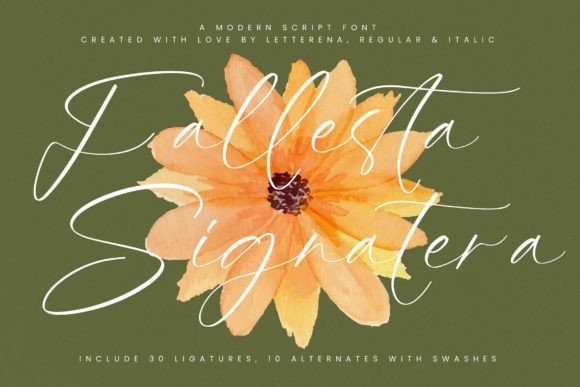
The Perfect Script: Elevating Your Designs with Fallesta Signatera Font
There’s something magical about the moment when a design comes together – the spark of creativity, the perfect balance of colors and typography. For designers, this moment is often the culmination of hours of brainstorming and experimentation. But what if we told you that the key to unlocking this magic lies in a single, stylish font? Enter Fallesta Signatera Font, a charming handwritten script that adds a touch of elegance and sophistication to any design.
Whether you’re crafting invitations, branding materials, or social media graphics, Fallesta Signatera Font is the perfect choice for designers seeking to infuse their work with a sense of warmth and creativity. With its fluid strokes and natural flow, this font is sure to captivate your audience and leave a lasting impression. As a valuable addition to any designer’s toolkit, Fallesta Signatera Font is an essential resource for anyone looking to elevate their designs to the next level.
Fallesta Signatera Font Key Features
- Unique Characteristics: Distinctive letterforms with subtle flair and elegance, making it ideal for luxury and high-end branding.
- Font Style: Available in Regular, Italic, Bold, and Bold Italic weights, providing versatility for various design applications.
Fallesta Signatera Font Review
I recently had the chance to work with the Fallesta Signatera font, and I must say, it’s an interesting choice. ✨ One thing that works well is its unique, hand-drawn feel, which can add a lot of character to designs. The font is perfect for projects that need a touch of personality and whimsy. ✨ It’s also very versatile, and I found it to be suitable for a wide range of applications, from branding to editorial work.
However, I did encounter some limitations while using the font. ⚠️ One major issue is its relatively small character set. While it’s not a deal-breaker, it can be frustrating to have to rely on other fonts for certain characters or glyphs. ⚠️ Additionally, the font can be quite difficult to read at smaller font sizes, which may limit its use in certain contexts.
Overall, I would say that the Fallesta Signatera font is a solid choice for designers who want to add some personality to their work. While it may have some limitations, its unique feel and versatility make it a great option for the right project.
- Unique, hand-drawn feel
- Perfect for projects that need a touch of personality and whimsy
- Versatile and suitable for a wide range of applications
- Can be difficult to read at smaller font sizes
- Relatively small character set
Fallesta Signatera Font: A Practical Application Guide
Tips for Getting the Most Out of Fallesta Signatera Font
Use Fallesta Signatera Font for:
- Typography-based designs.
- Signage and branding materials.
- Headlines and titles.
Remember to pair Fallesta Signatera Font with complementary fonts to create a visually appealing design.
Alternatives to Fallesta Signatera Font
Playfair Display is an elegant, high-end serif font perfect for luxury brands, high-end fashion, and sophisticated designs. It features beautiful connections between letters and a classic feel.
Comparison to Fallesta Signatera Font: While Fallesta Signatera Font has a unique, hand-painted feel, Playfair Display is more traditional and luxurious. Use Playfair Display for designs that require a touch of elegance and sophistication.
Great Vibes is a beautiful, elegant script font ideal for weddings, invitations, and other special occasions. It features a flowing, cursive design with a touch of whimsy.
Comparison to Fallesta Signatera Font: Great Vibes is more playful and whimsical than Fallesta Signatera Font, with a focus on elegant script lettering. Use Great Vibes for designs that require a touch of romance and elegance.
Carolyna Pro is a modern, elegant sans-serif font perfect for fashion brands, luxury goods, and high-end designs. It features a clean, sophisticated design with a touch of sophistication.